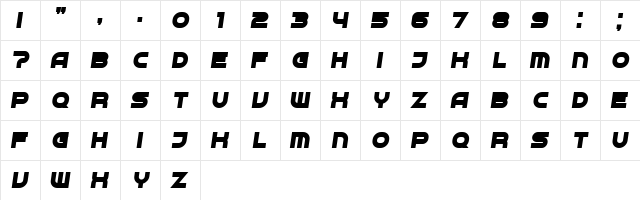
Neighbor Bold Italic
Design Context for Neighbor Typeface
Neighbor offers clean, dependable letterforms without strong stylistic allegiance, making it a practical choice for designers who need flexibility. Its italic angle brings a sense of urgency and motion to the letterforms. Its bold stroke weight gives it real presence on the page.
Pro Tip: Try Neighbor for annotation and caption copy alongside an upright companion — the contrast in angle creates a dynamic but ordered typographic system.